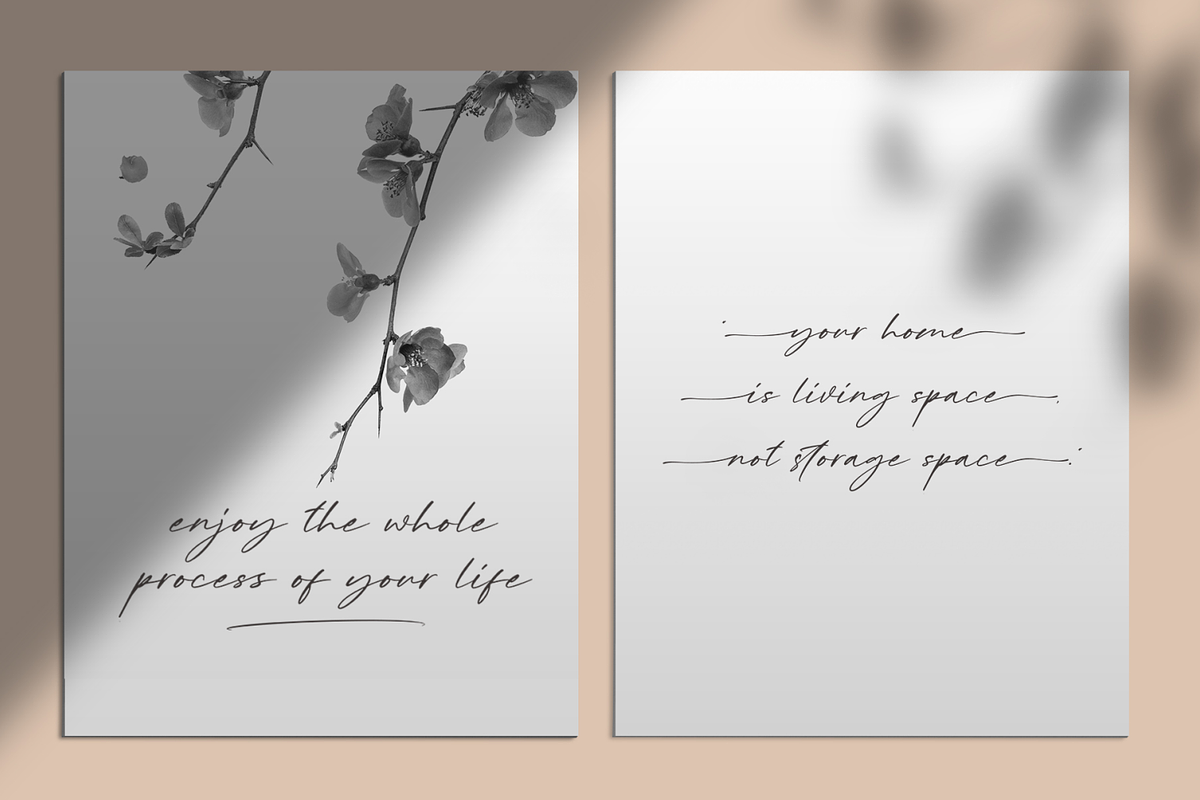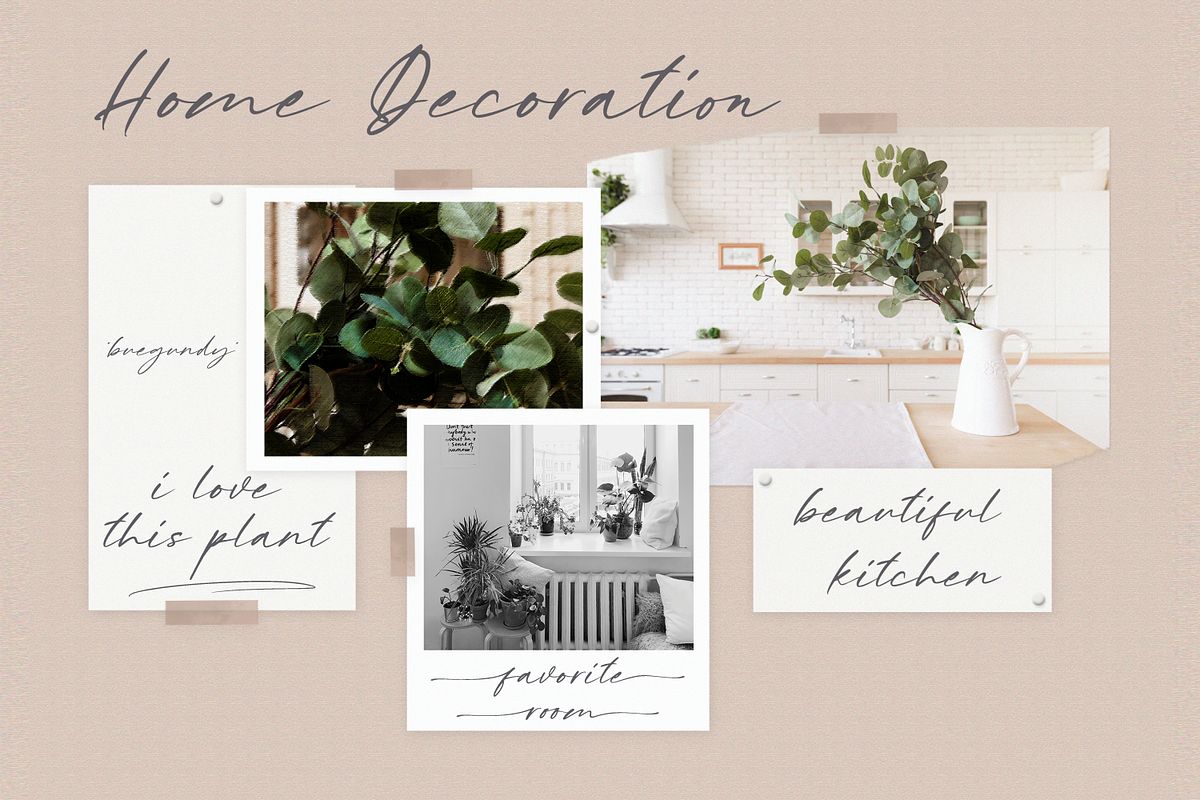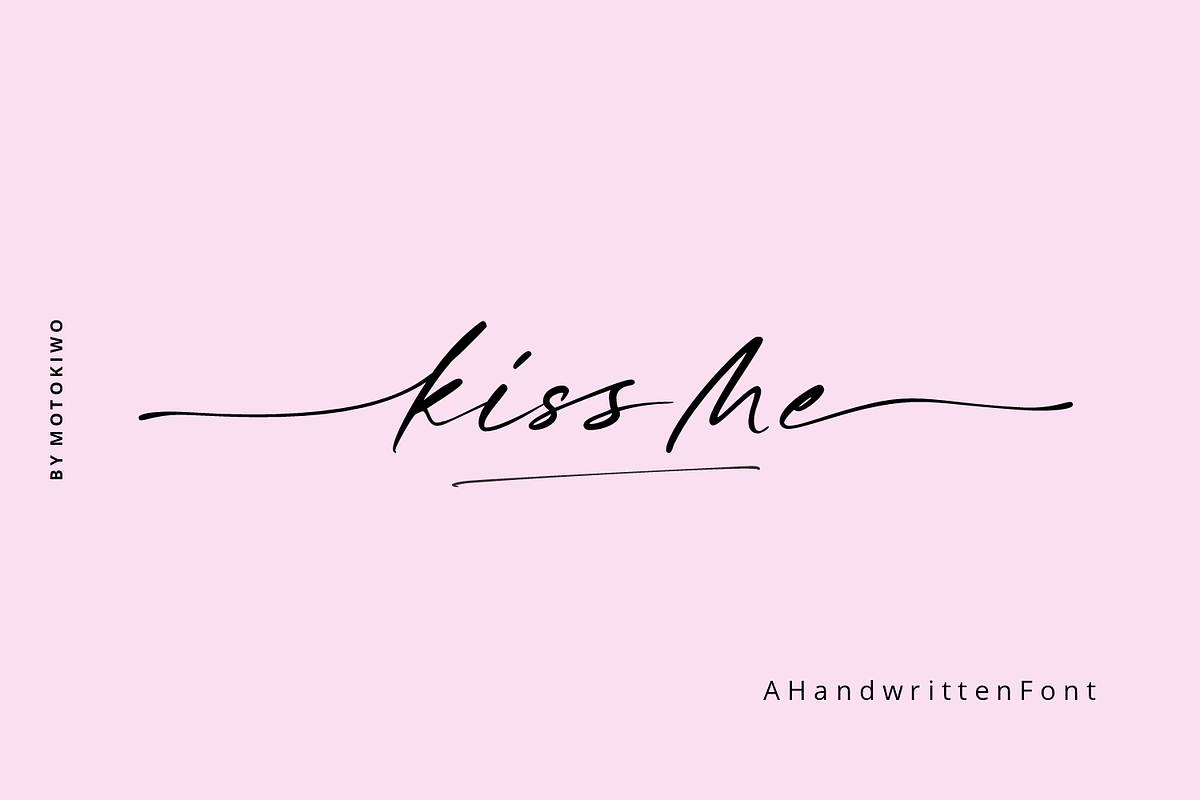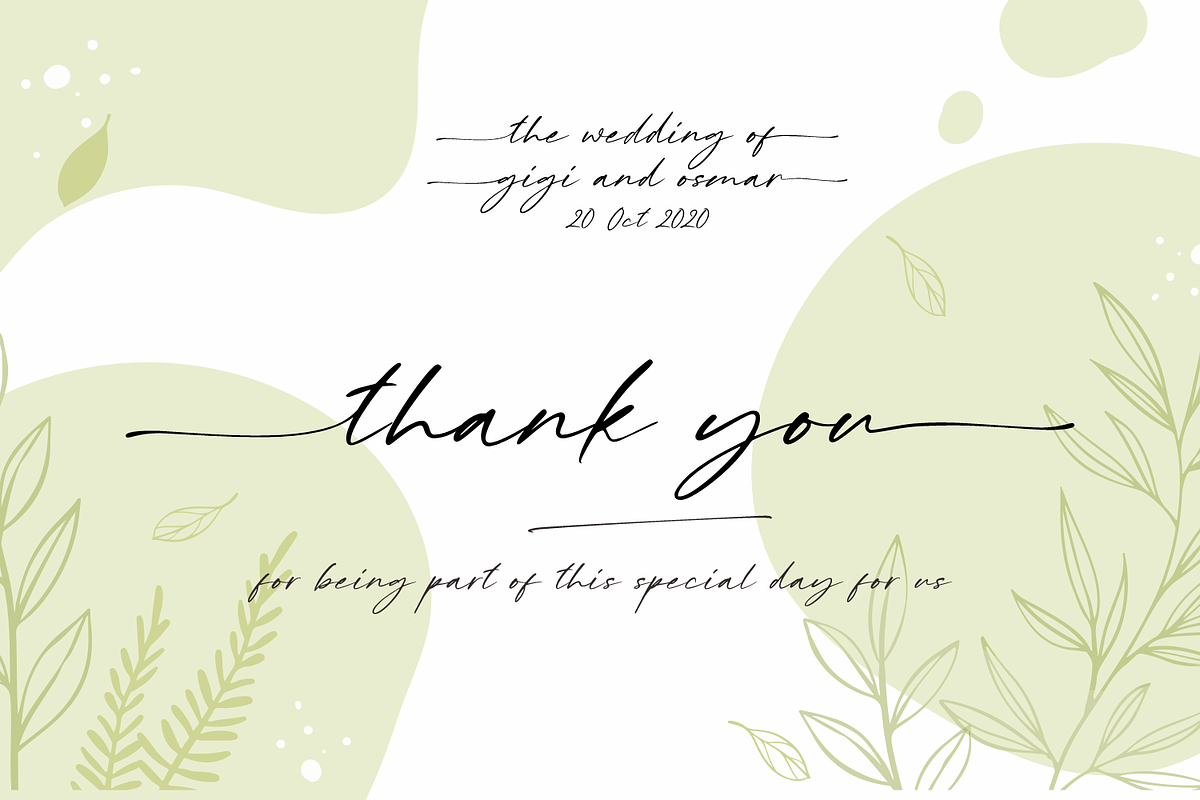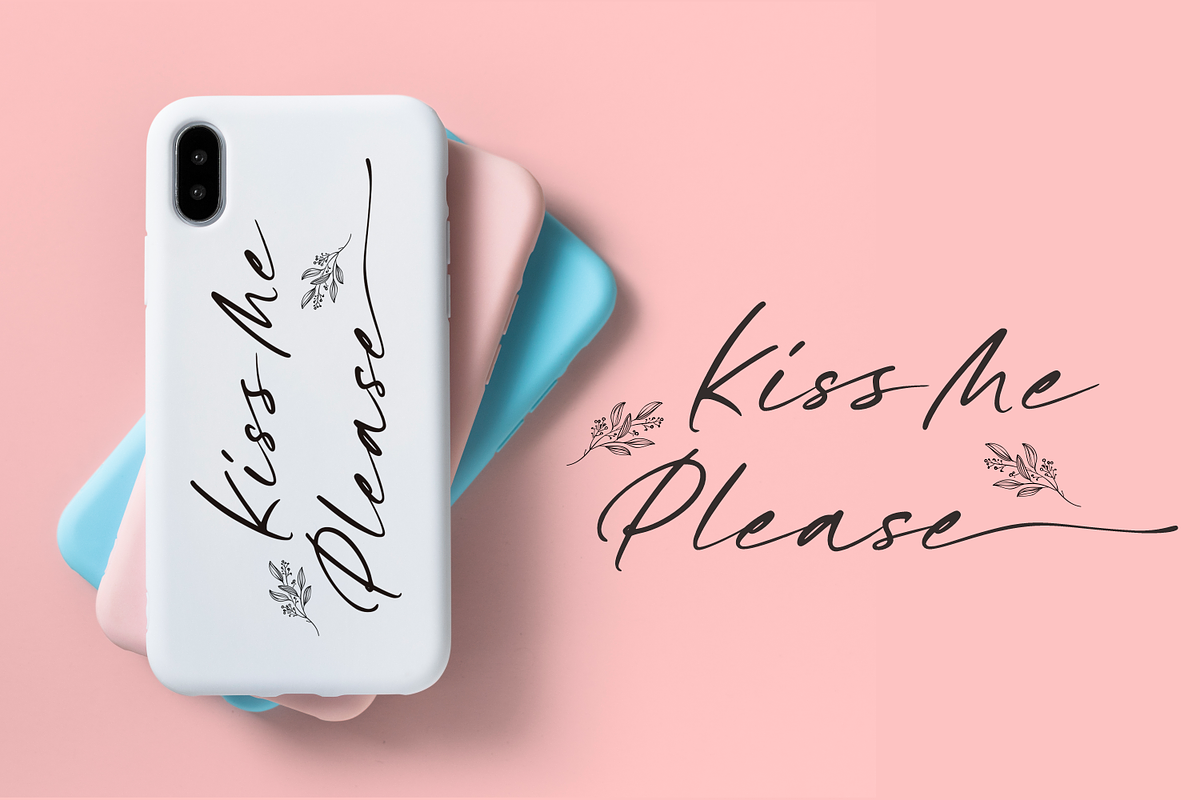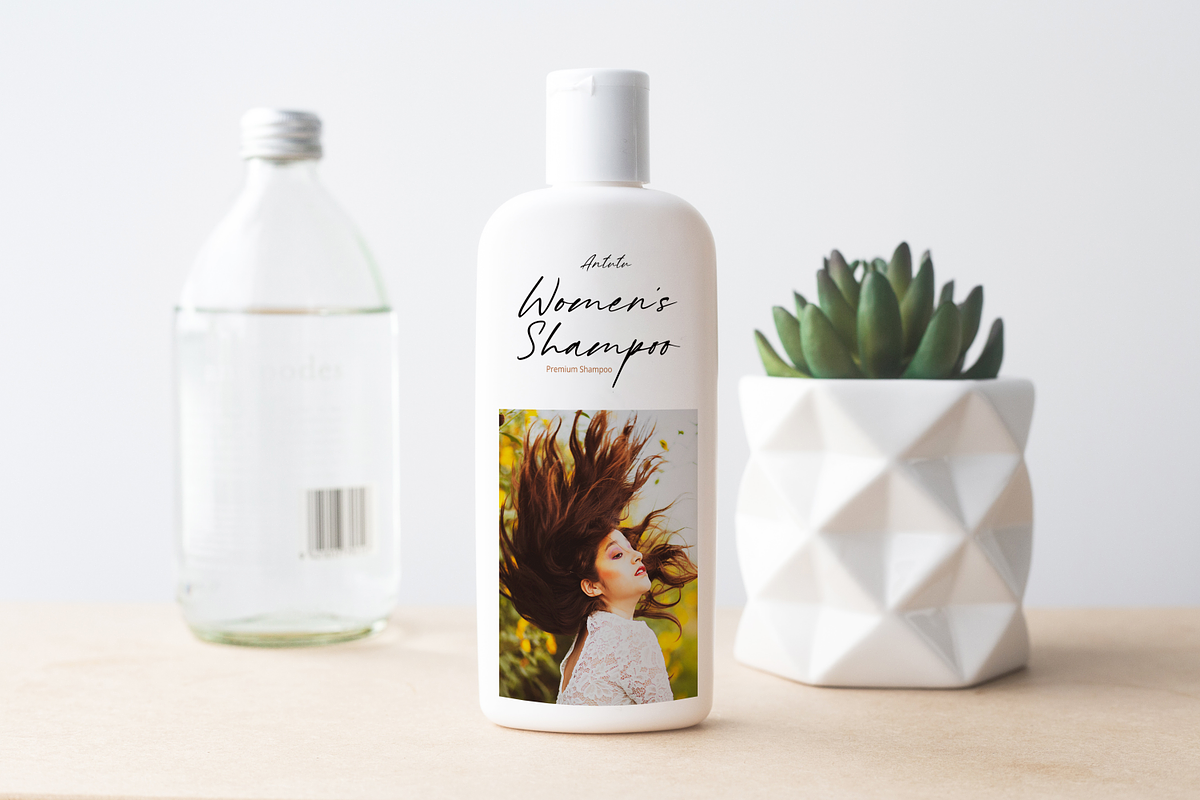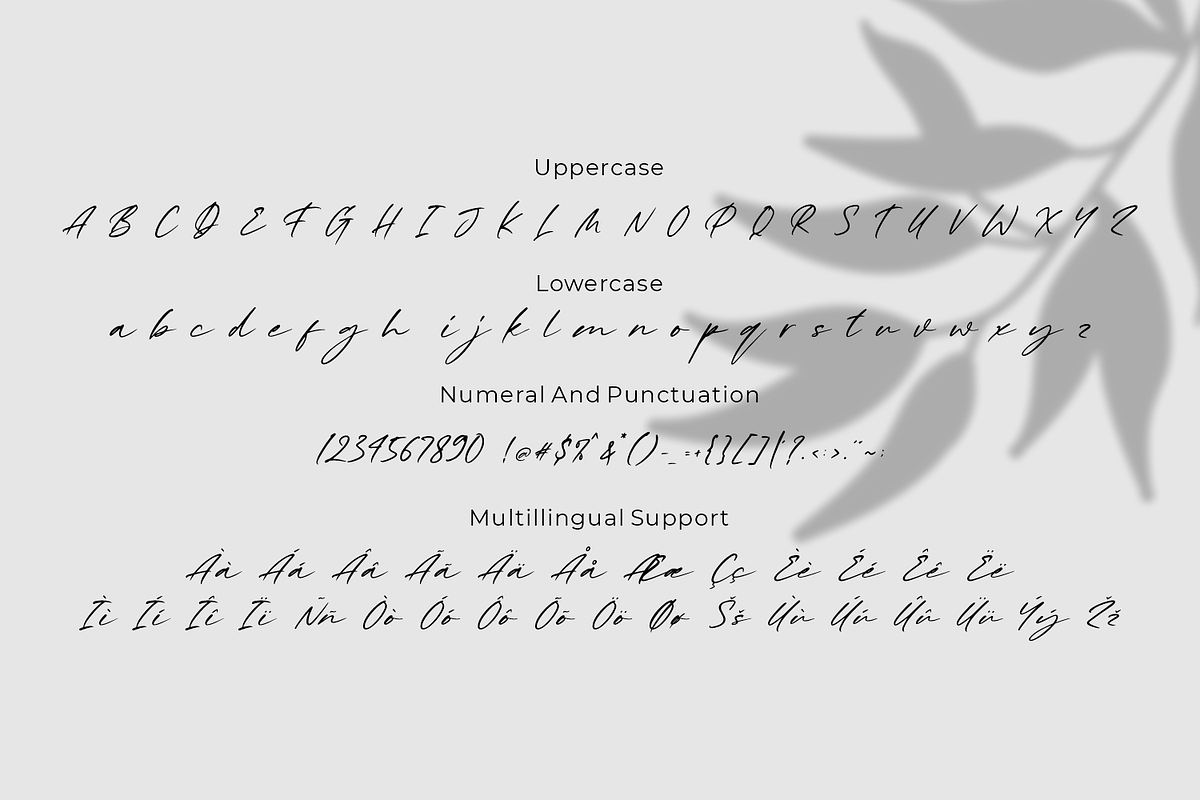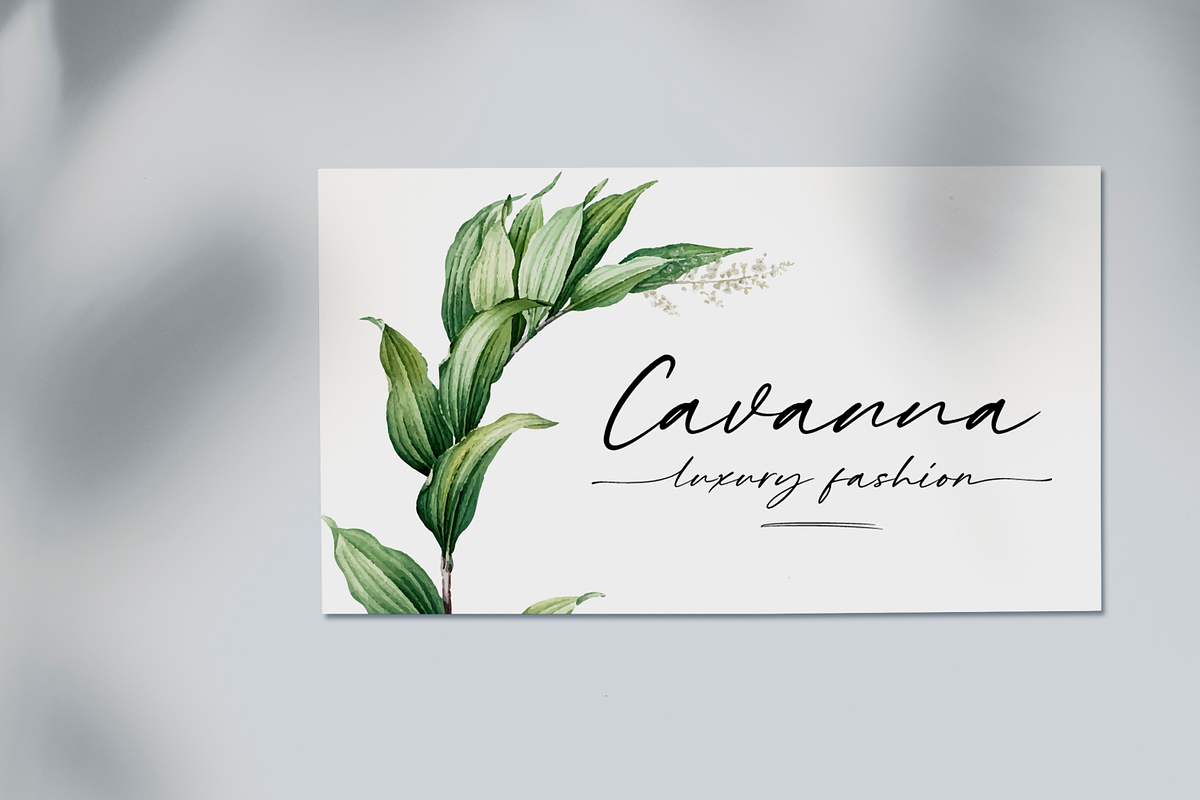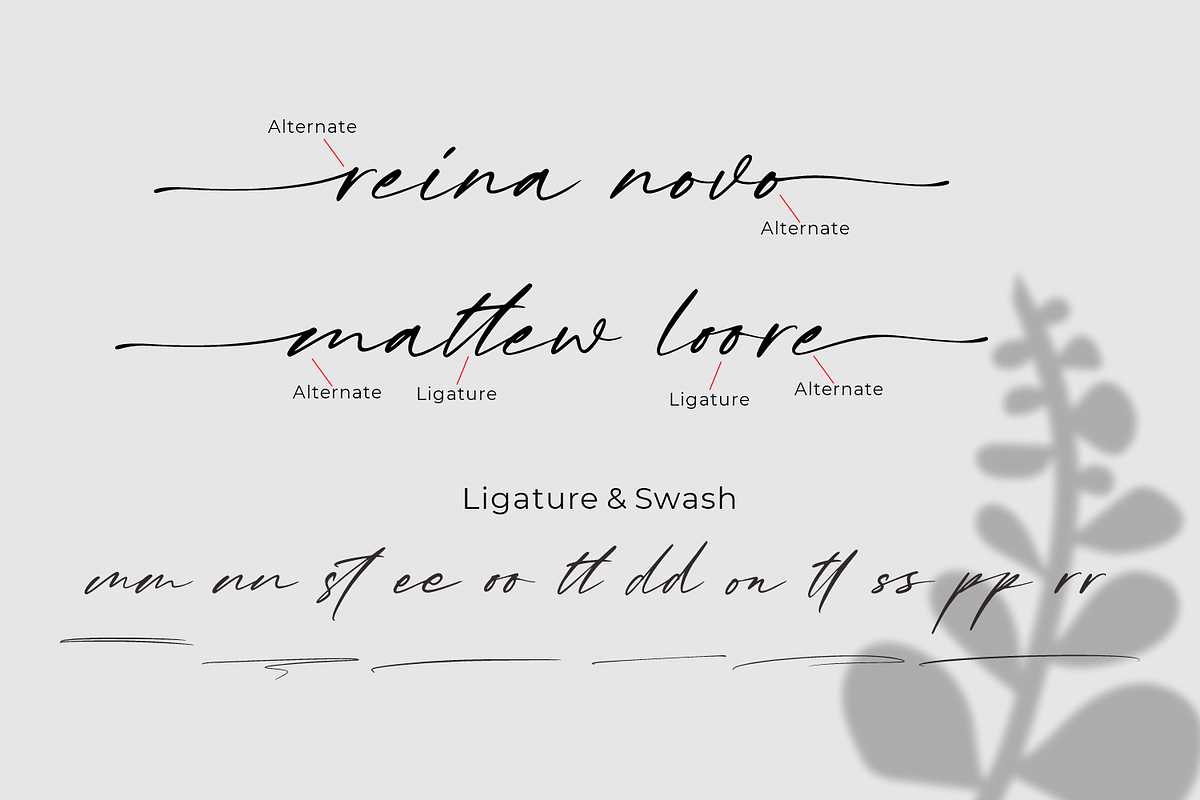
Kiss Me, a chic handwritten font
Kiss Me script font is beautiful, a well designed for pretty girls. It's handwritten font with a chic ballpoint strokes style that very suitable for romantic and passionate typography projects such as wedding, fashion logo, branding, or a signature text.
- Kiss Me Alt 1 : This is an alternate font for starting swash/tail
- Kiss Me Alt 2 : This is an alternate font for ending swash/tail
- Kiss Me : This is the full package that includes all alternates and swashes